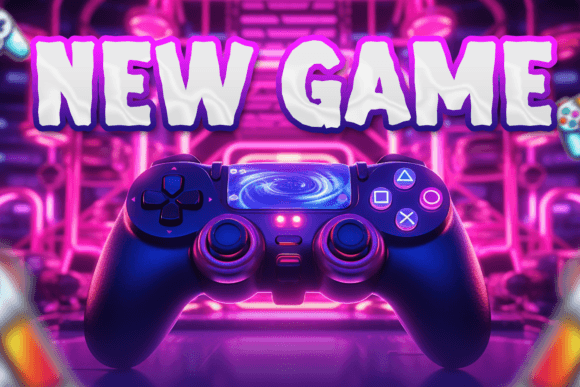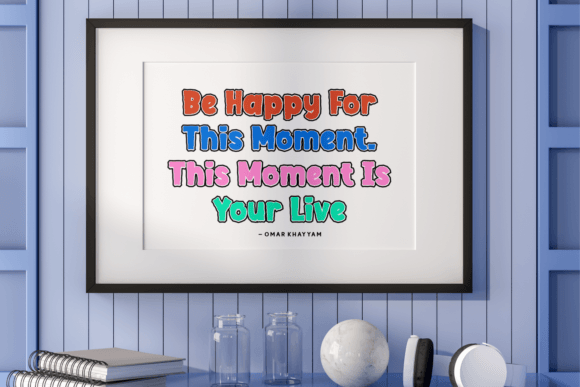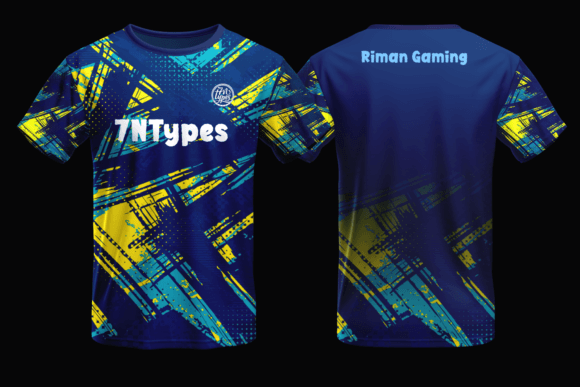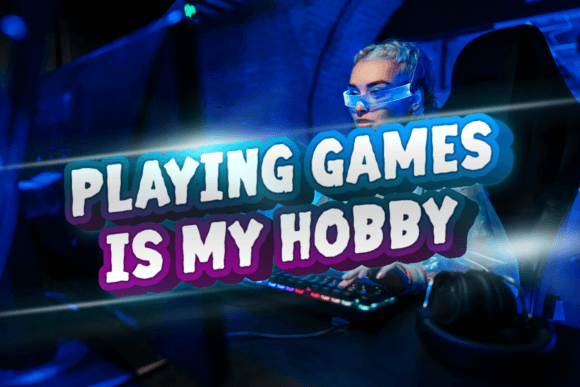
Introduction to Gaming Hobby Font
Unleash the power of play with “Gaming Hobby,” a dynamic display font crafted for the gaming realm.
With bold, futuristic letterforms, this font embodies the spirit of excitement and competition Ideal for gaming logos, stream overlays, or any digital arena, Gaming Hobby ensures your text stands out with a thrilling edge.
Key Features of Gaming Hobby Font
Why Choose Gaming Hobby Font?